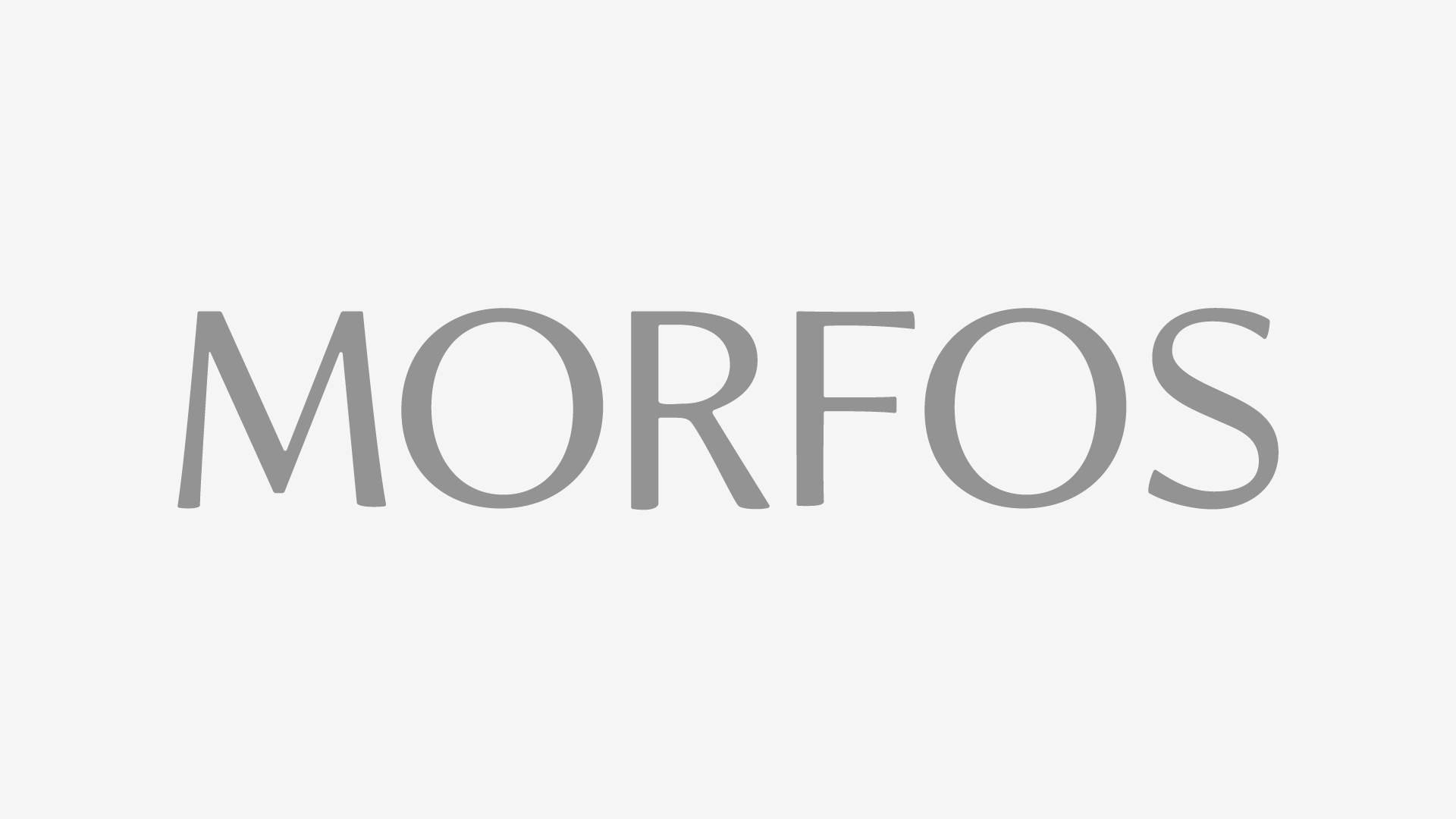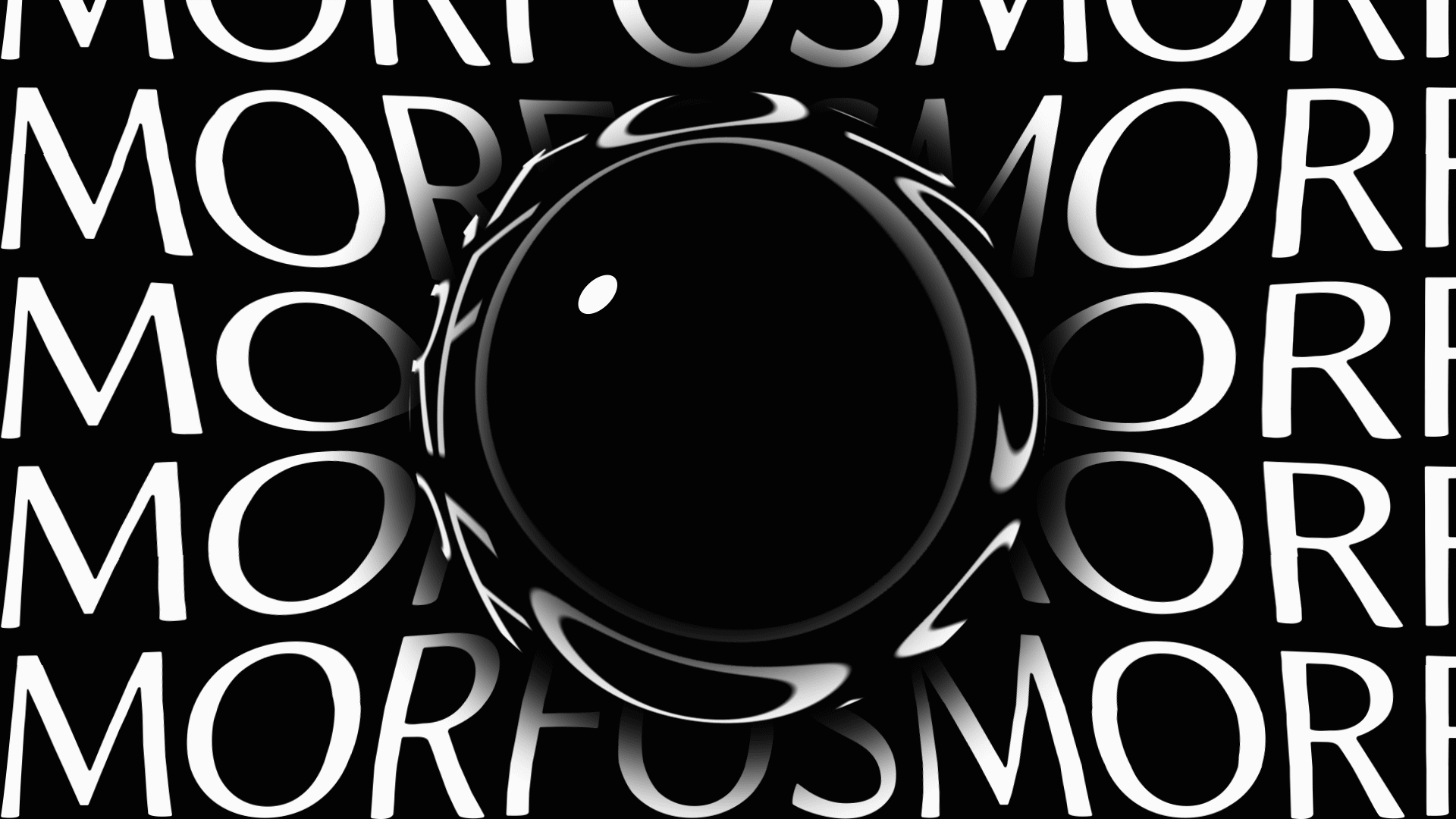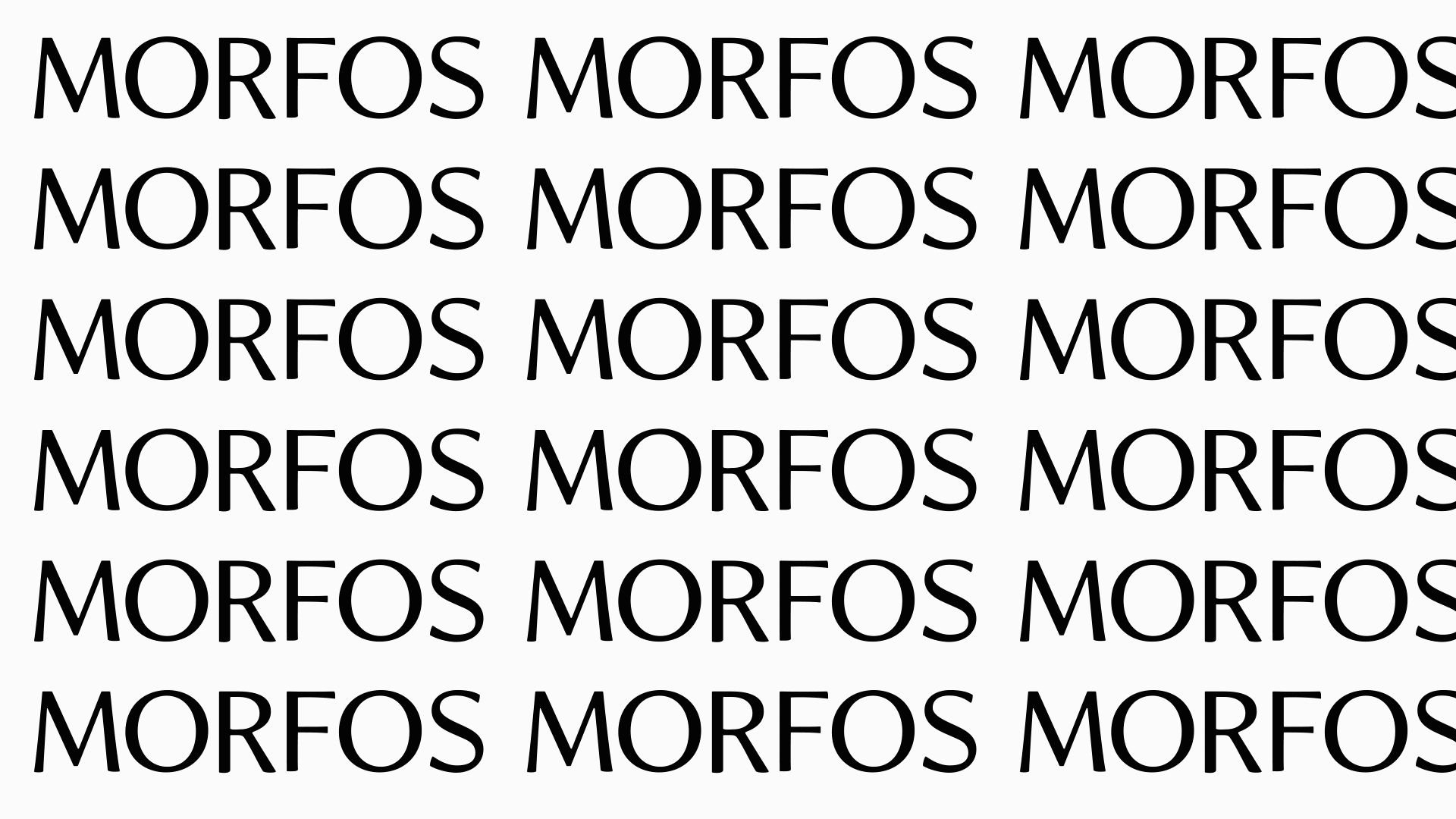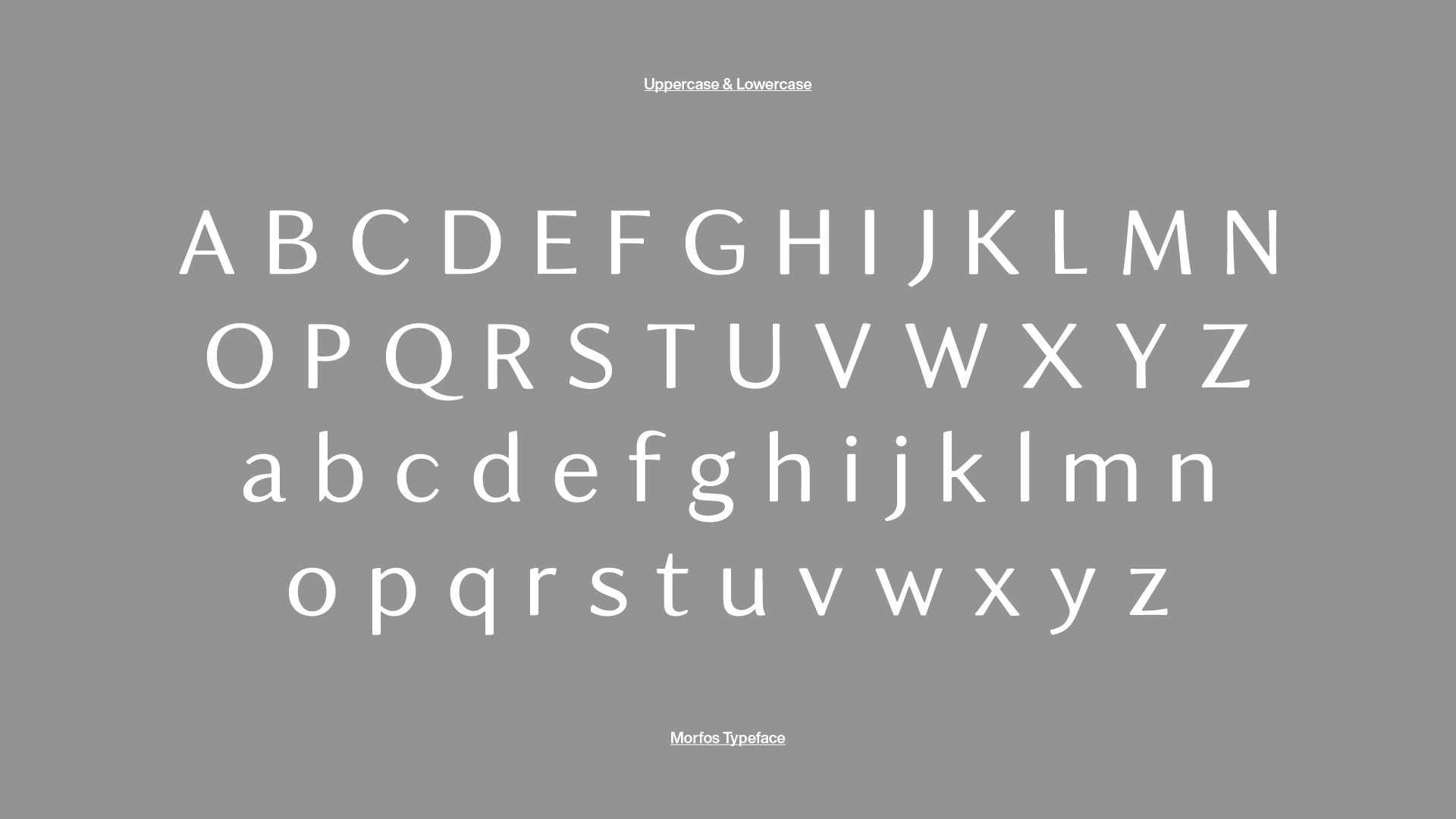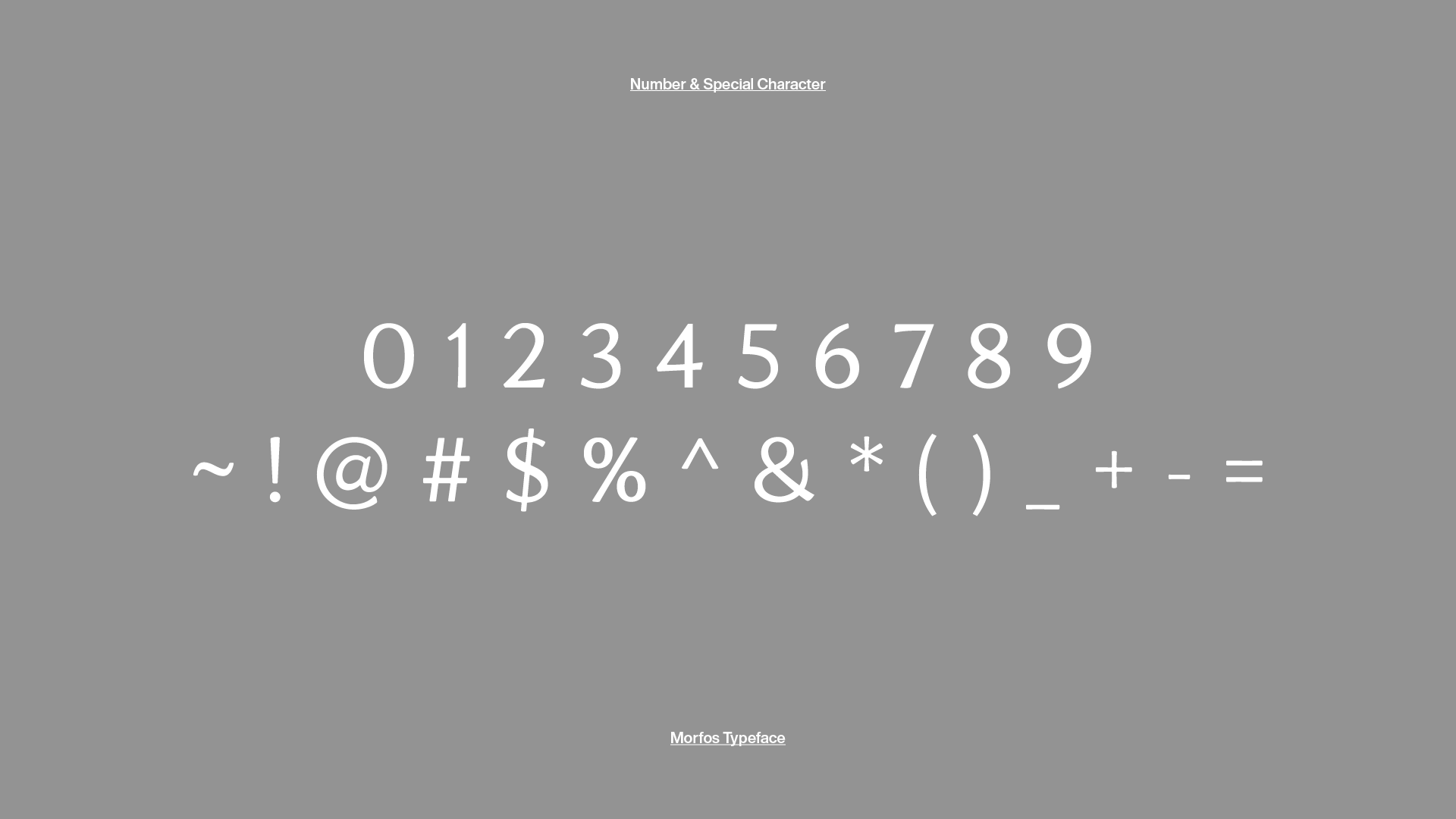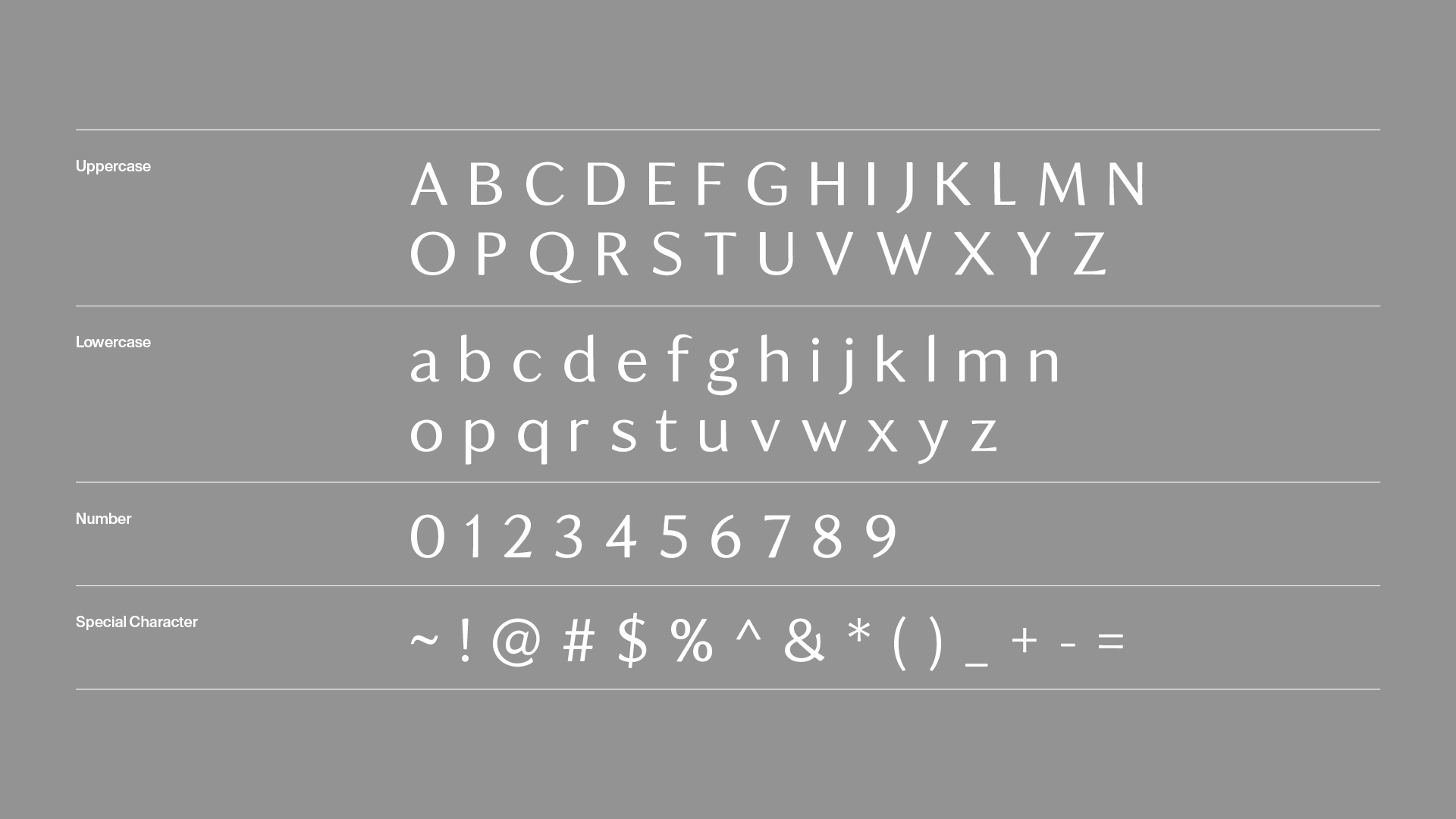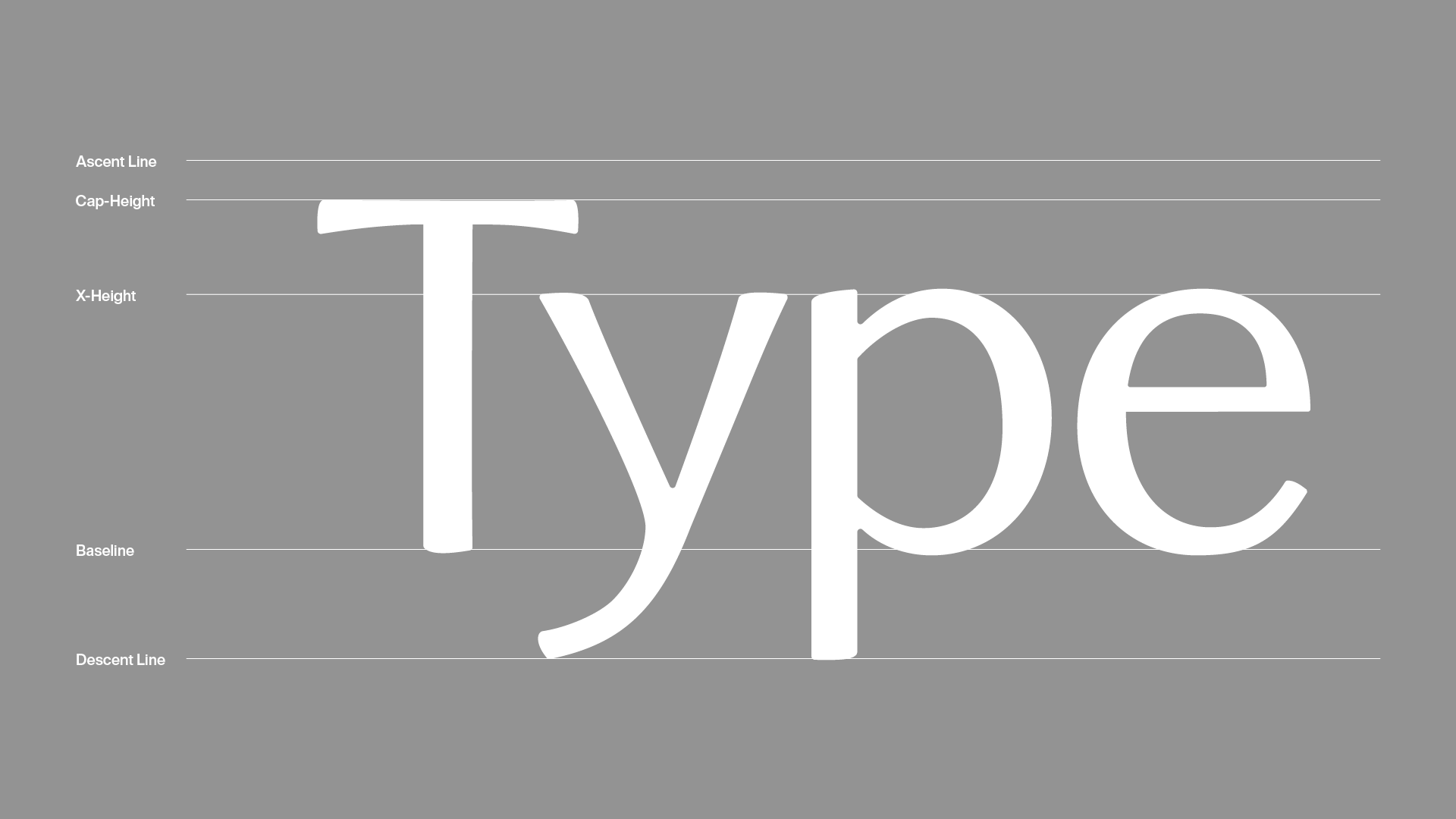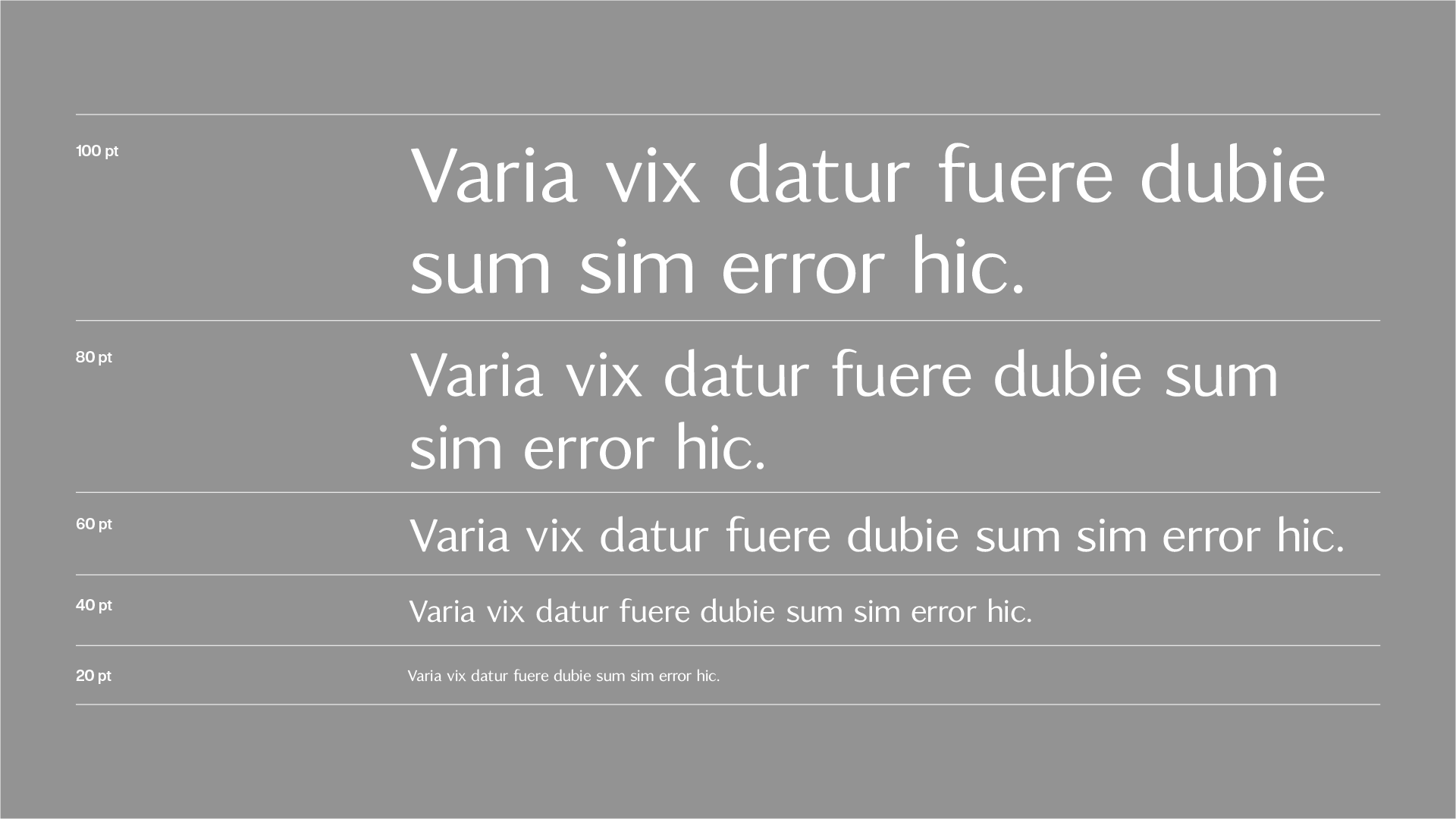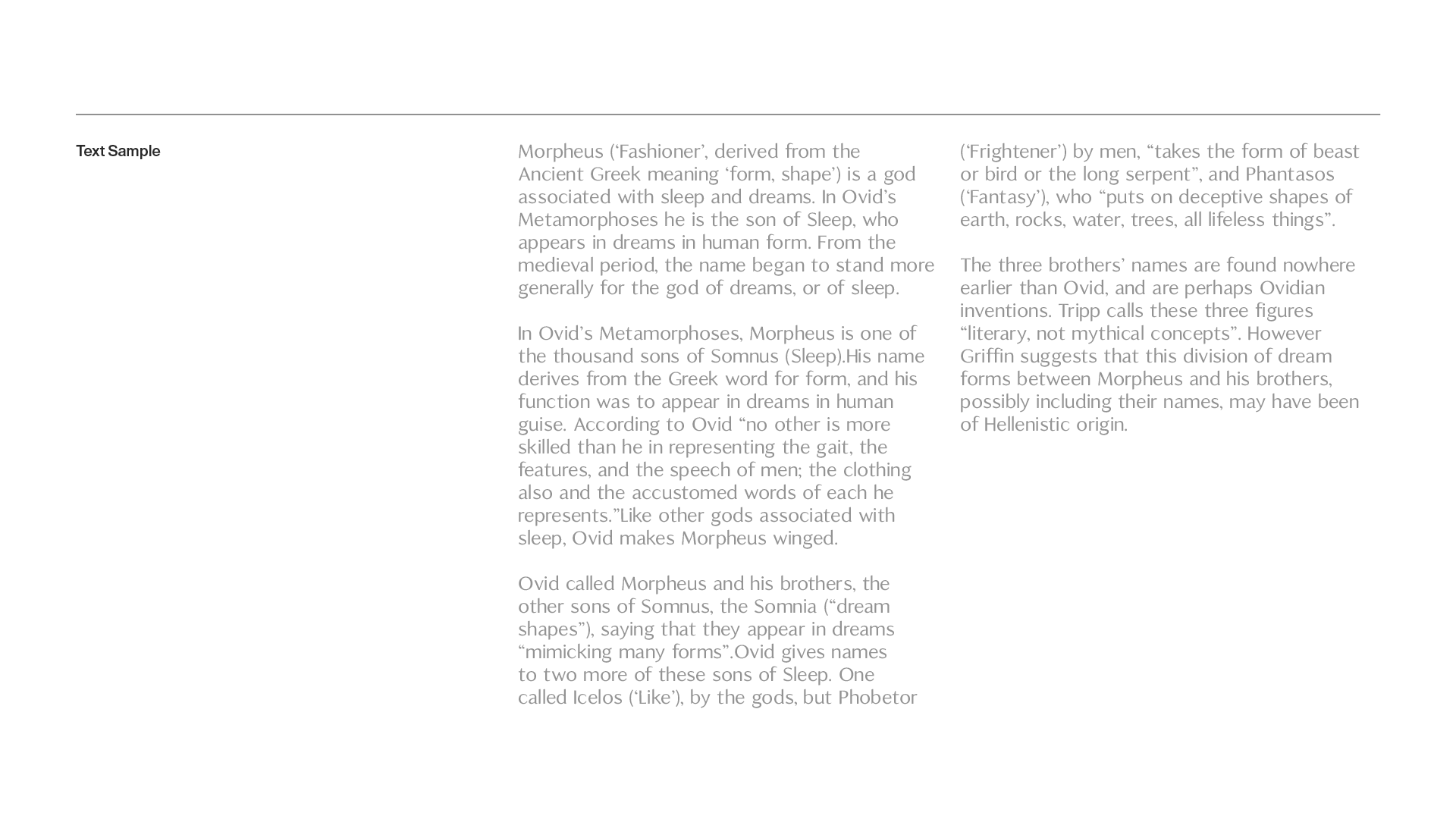
Morfos is a calligraphic typeface designed as a part of the brand identity project for MORFOS, a premium mattress brand in South Korea.
For the visual harmonization with the logomark, I carefully carved every terminal of each letterform to have beautiful curves, and adjusted the stroke width of every letterform as well, to make them legible in any size.